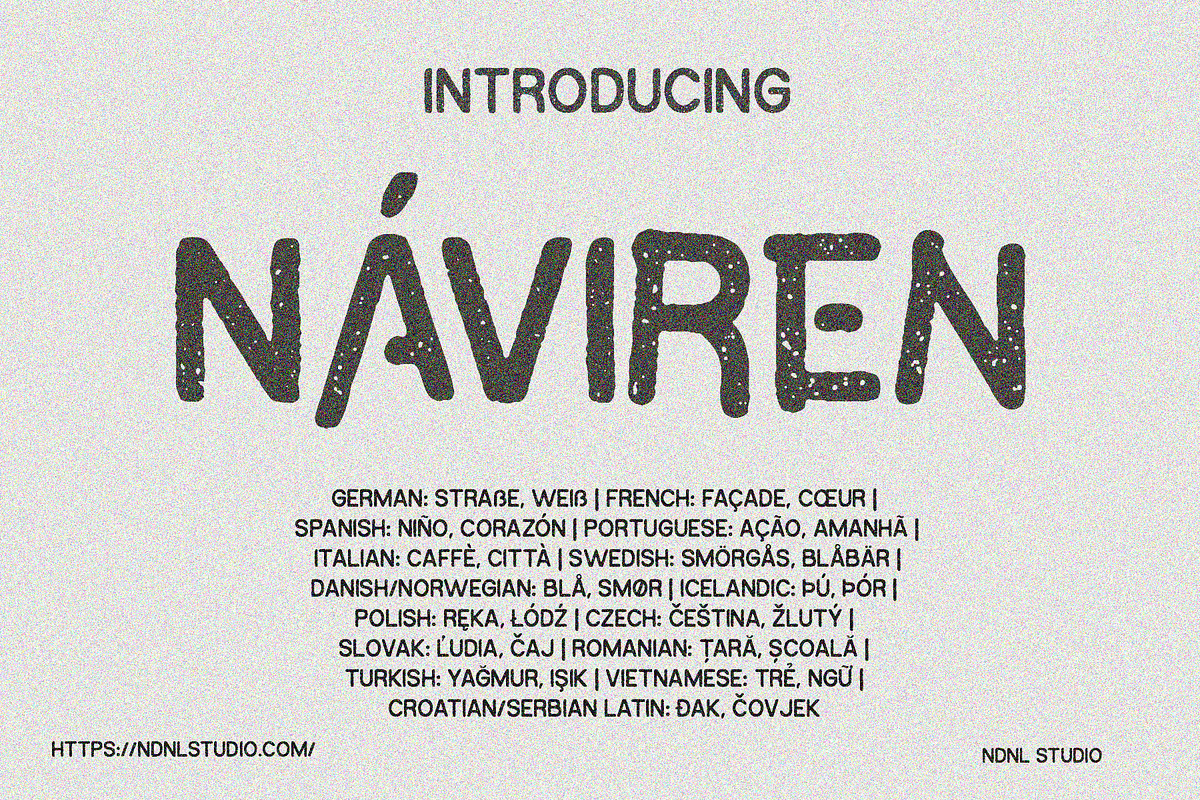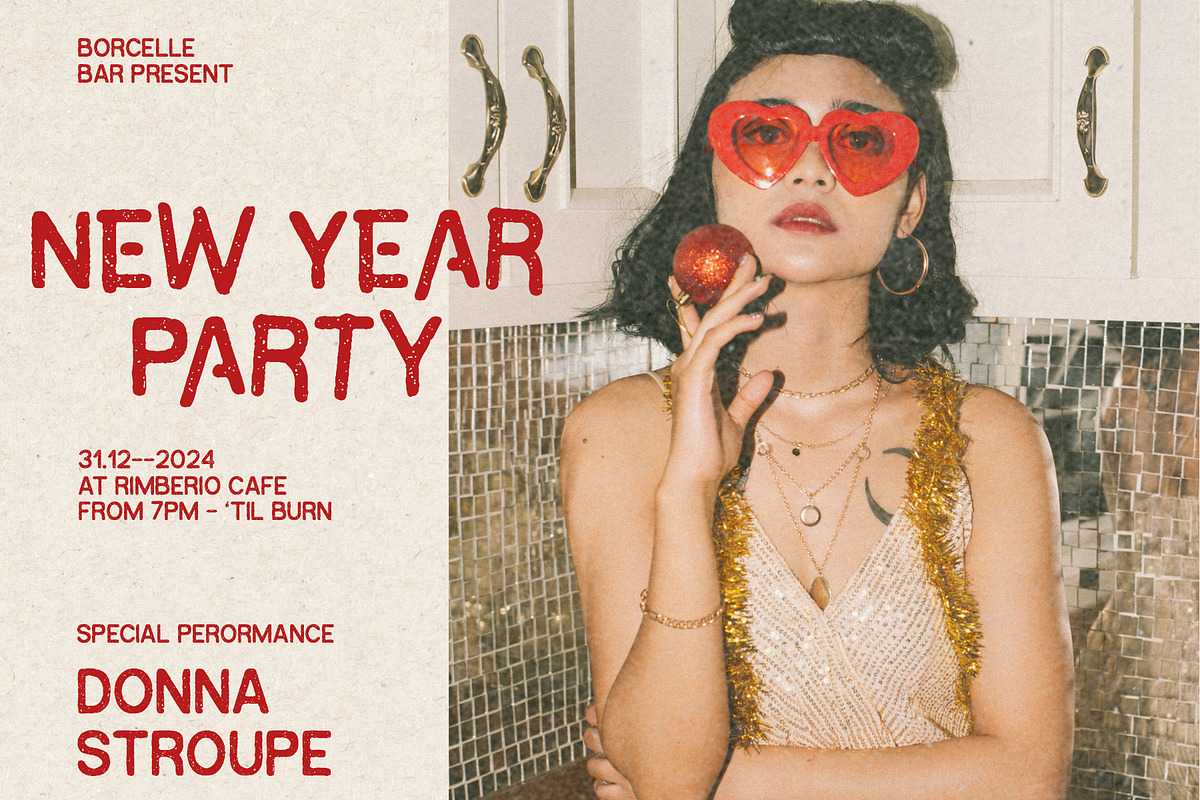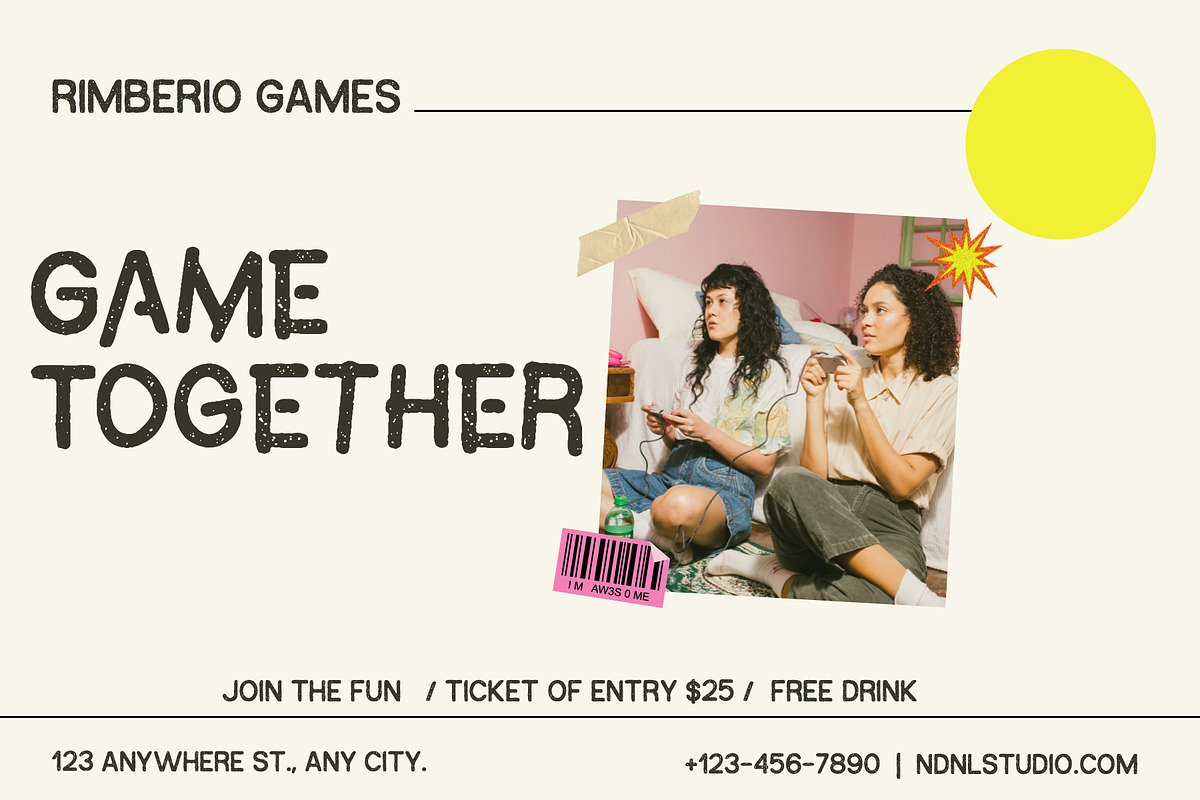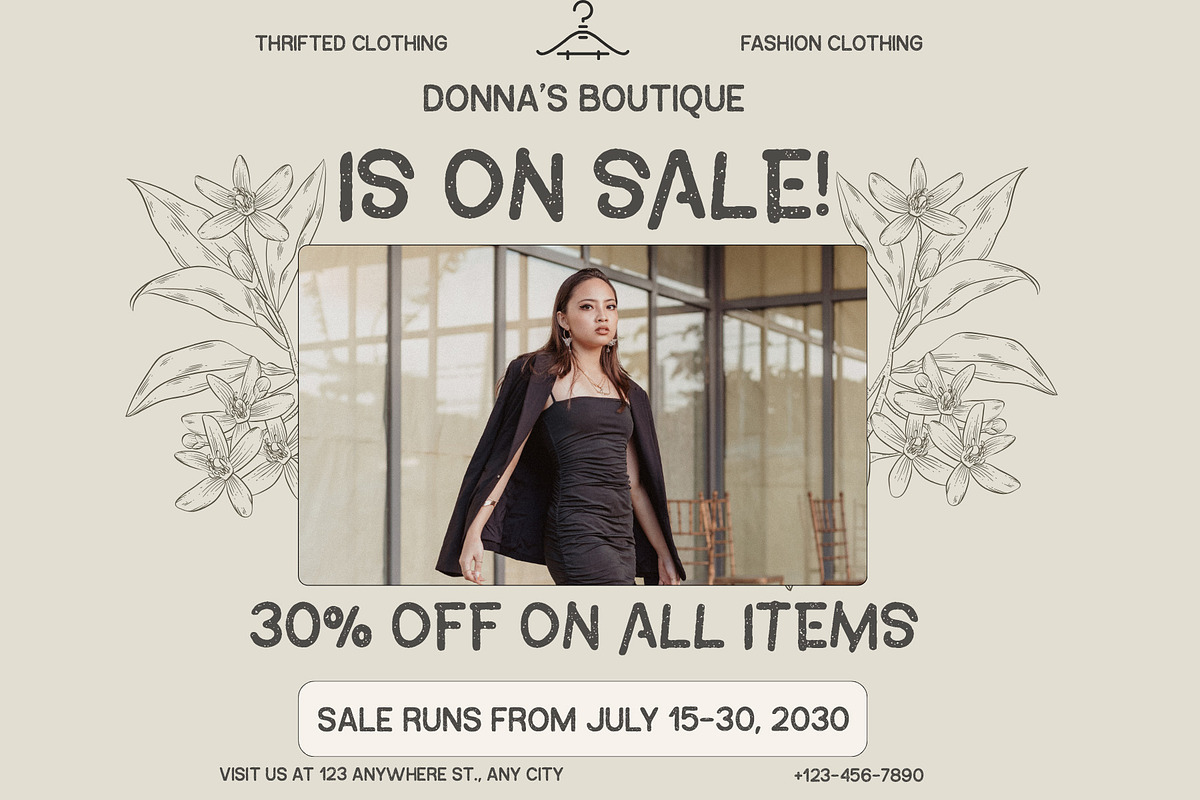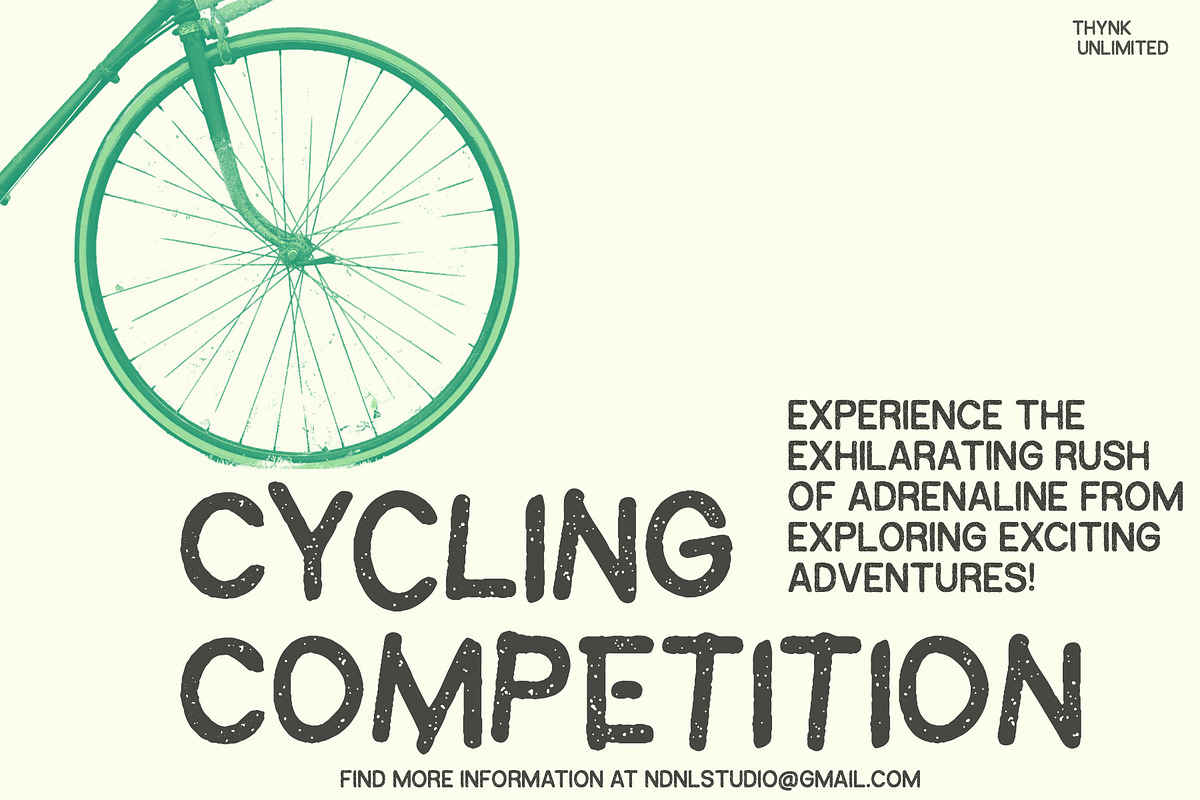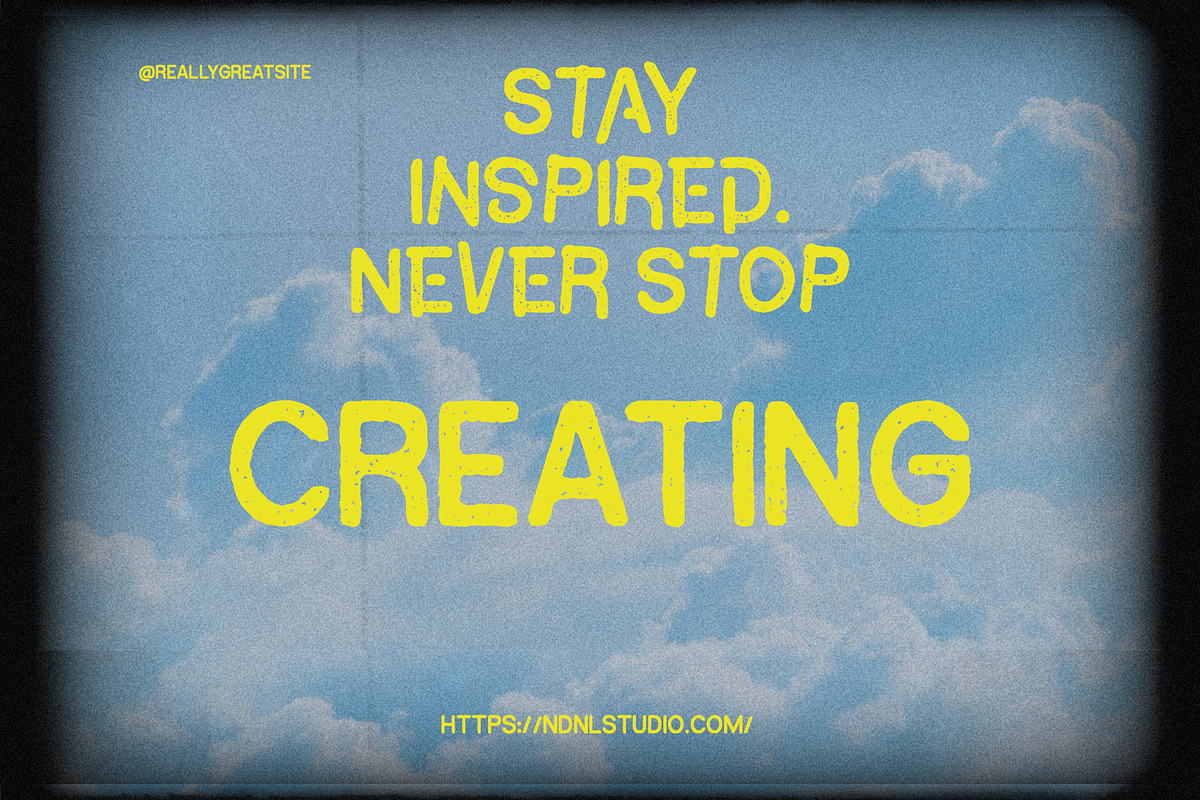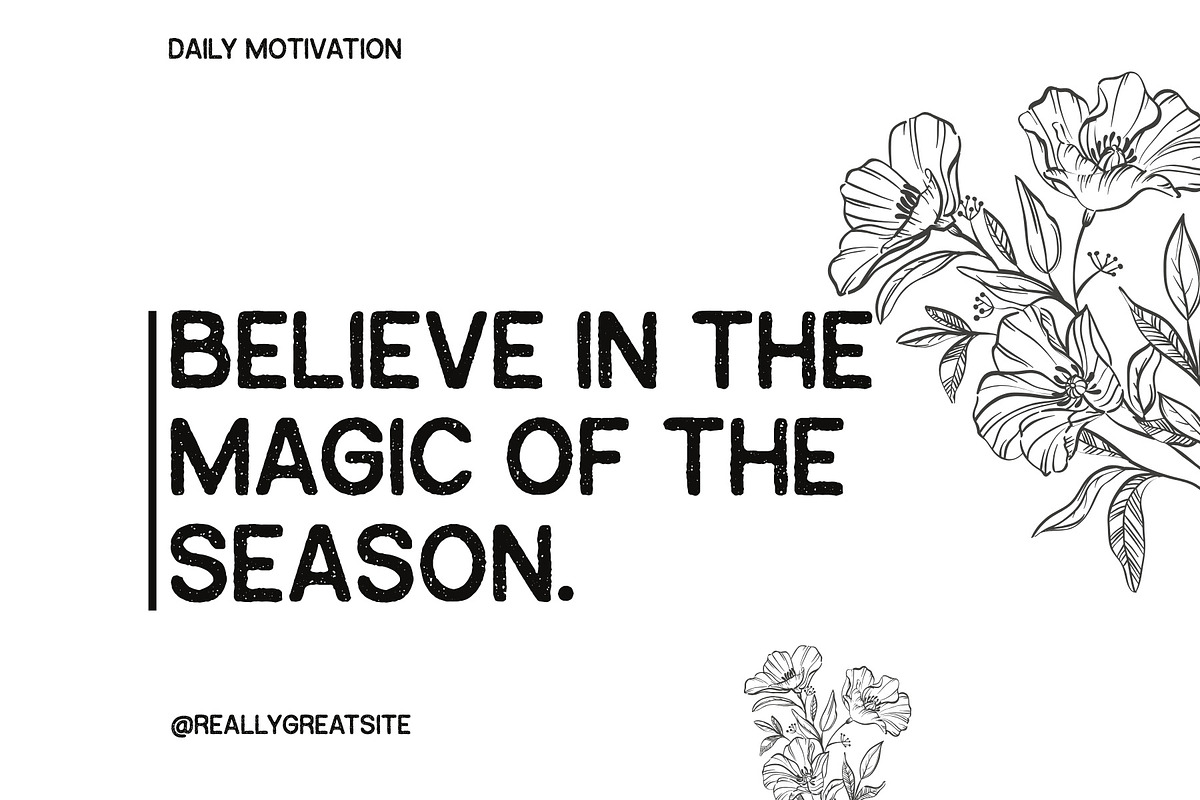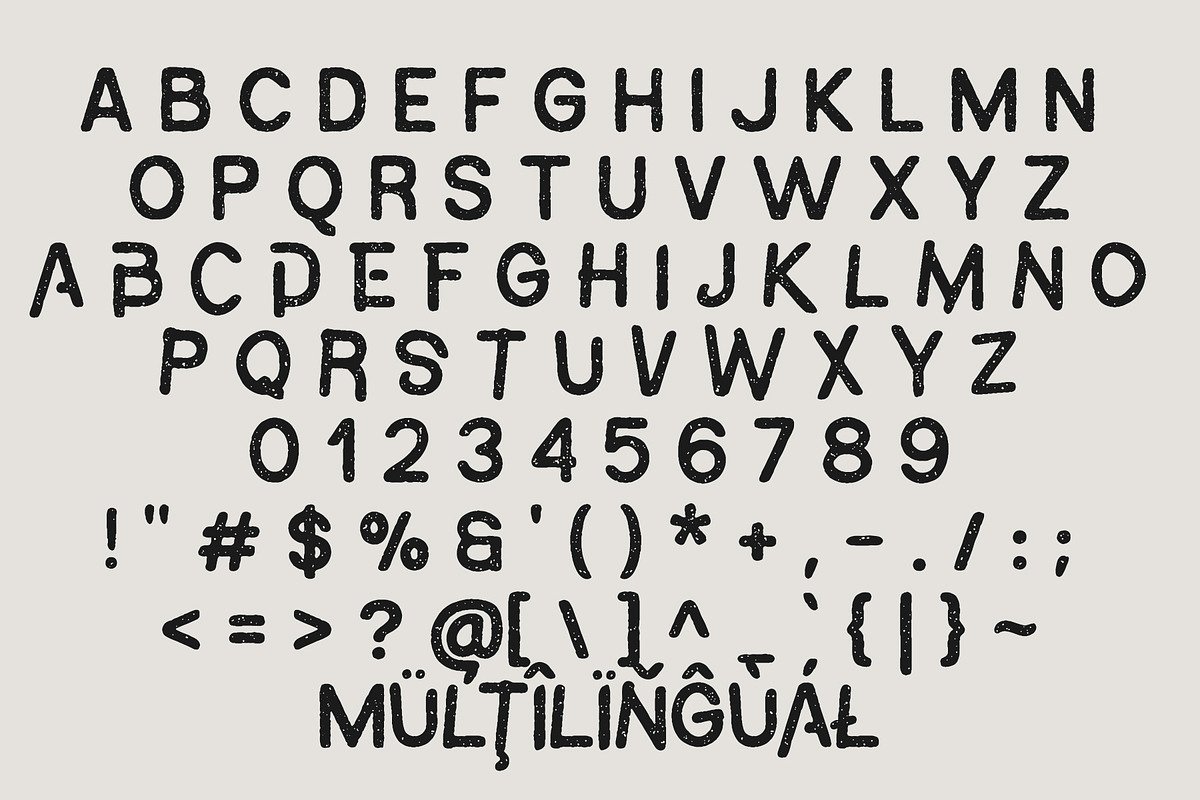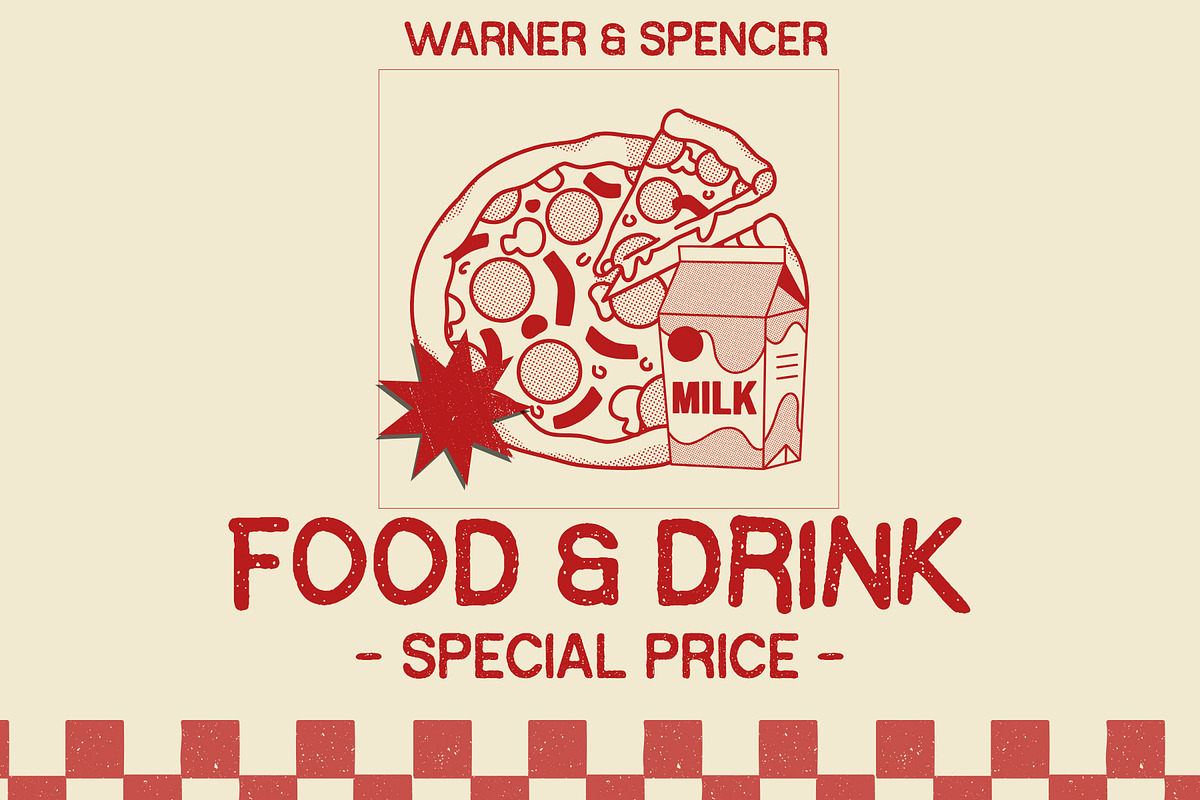
Naviren – Vintage Font
Introducing Naviren !
Naviren is a handcrafted display typeface with a rustic, playful, and expressive personality. Featuring organic letterforms and a unique grainy texture, Naviren delivers a warm handmade feel while remaining bold and eye-catching.
The font comes with extensive multilingual support including Western & Central European, Scandinavian, Turkish, Romanian, Vietnamese, and many special characters — making it perfect for global design projects.
Naviren works beautifully for:
- Logos & branding
- Posters and banners
- Product packaging
- Social media graphics
- Handmade, retro, playful designs
- Headlines and creative typography
If you’re looking for a font that feels both charming and impactful, Naviren is a great companion for your creative work.